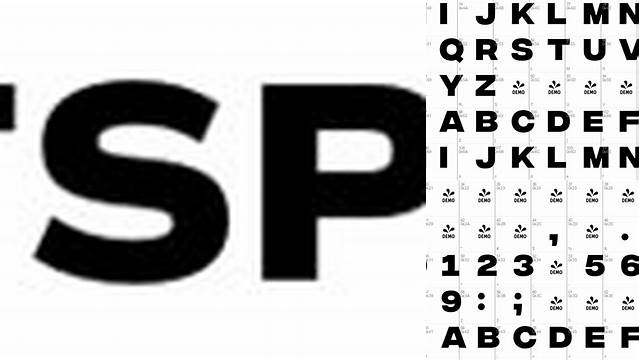
Fontspring Demo: Integral Bold Font Unveiled
Alright, font fanatics, let's dive headfirst into the awesome world of typography! Today, we're geeking out over the Fontspring Demo of the Integral Bold font. This isn't just about picking a pretty typeface; it's about understanding how a font can truly elevate your designs, make your words pop, and generally make you look like a design superhero. So, grab your coffee (or tea, no judgment!), and let's get started. The Fontspring Demo gives us a fantastic sneak peek at what we're in for with the Integral Bold font, allowing us to test-drive it and see how it fits into our projects. This is more than just a font; it's a statement. It's got that perfect balance of modern and classic, making it ideal for a wide range of applications. This means you can use it for everything from website headings to eye-catching posters and everything in between. The bold weight is particularly useful when you need to grab attention – think headlines, calls to action, or any element that needs to shout the loudest. So, if you're looking for a versatile, stylish, and attention-grabbing font, the Integral Bold font via Fontspring is definitely one to watch!
H2: Exploring the Distinctive Characteristics of Integral Bold
When we're talking about the Integral Bold font in a Fontspring Demo, we're really talking about its unique personality. This font isn't just another face in the crowd; it has its own set of traits that set it apart. First off, let's consider its boldness. The Integral Bold font is, well, bold! It's designed to make a statement, to grab the reader's attention instantly. The thick strokes and strong presence make it perfect for headings, titles, and any place where you want to emphasize importance. But it's not just about being loud; the Integral Bold font also has a certain elegance. The letterforms are carefully crafted, with a balance between straight lines and gentle curves. This gives it a modern feel while maintaining a touch of classic charm. It's a font that can look good in a sleek, minimalist design or a more traditional layout. The designers behind the Integral Bold font have clearly put a lot of thought into every detail, ensuring that each letter is perfectly balanced and contributes to the overall aesthetic. This attention to detail is what makes it a truly premium font. In the Fontspring Demo, you'll be able to see how the font behaves in different sizes and contexts. You can experiment with different colors, backgrounds, and text arrangements to see how it performs in different situations. This is a great way to see if the Integral Bold font is the right fit for your specific design needs. Remember, choosing a font is about more than just liking the way it looks. It's about understanding its personality and how it interacts with other design elements. The Integral Bold font has a lot to offer, so take your time, play around with it, and see how it can enhance your work.
H3: Analyzing the Font's Weight and Style Variations
Let's get into the nitty-gritty of the Integral Bold font's weight and style variations, because that's where the real fun begins! The beauty of a font like this is that it often comes with a family of styles, giving you options to play with. Now, obviously, we're focusing on the Bold version, which is the star of the show in the Fontspring Demo. This weight is the champion of headlines and calls to action, demanding attention with its solid strokes. But, a good font family won't stop there. You might find lighter versions, like Regular or Light, which are perfect for body text and subheadings, creating a visual hierarchy that guides the reader's eye. The Bold style typically serves as the anchor, providing a strong foundation, while the other weights complement it. The contrast between these weights is crucial for effective design; it prevents everything from blending together and creates a clear visual experience. You may also find the option to experiment with Italic versions, which can add a touch of elegance or emphasis. Imagine using the regular version for your paragraphs, the bold version for your headings, and the italic version for quotes or key phrases. You're creating a dynamic and visually interesting layout! In the Fontspring Demo, you can experiment with how these different variations work together. Think about how they interact with each other. Do the styles work in harmony? Does the contrast feel right for your project? Remember, font selection is all about finding the right balance to enhance your message. Consider the overall tone of your project when deciding on the combination of weights and styles. The Integral Bold font, in its full family, provides a great toolset for creating a polished and professional design.
H2: The Fontspring Demo: Your Test Drive to Design Perfection
Alright, let's talk about the Fontspring Demo, because it's the secret weapon in your font-hunting arsenal. Think of it as a test drive for your designs. The Fontspring Demo of the Integral Bold font is your chance to take this typeface for a spin and see how it performs in the real world. This is not just about looking at the font on a screen; it's about understanding how it feels, how it interacts with other elements, and whether it matches your vision. In the Fontspring Demo, you can type out your own text and see it rendered in the Integral Bold font. This allows you to see how your specific words and phrases will look, and to identify any potential issues with readability or spacing. You can experiment with different sizes, colors, and backgrounds to get a feel for how the font behaves in various design contexts. This is incredibly valuable for making informed decisions about your design projects. The beauty of the Fontspring Demo is that it removes the guesswork. Instead of just imagining how a font will look, you can actually see it, test it, and experience it firsthand. This can save you a lot of time and effort in the long run. The Fontspring Demo also provides a valuable opportunity to explore the font's different features and characteristics. You can see how it handles special characters, ligatures, and other typographic elements. This gives you a deeper understanding of the font's capabilities and potential. So, before you commit to buying a font like Integral Bold, always take advantage of the Fontspring Demo. It's your key to unlocking the perfect typeface for your designs.